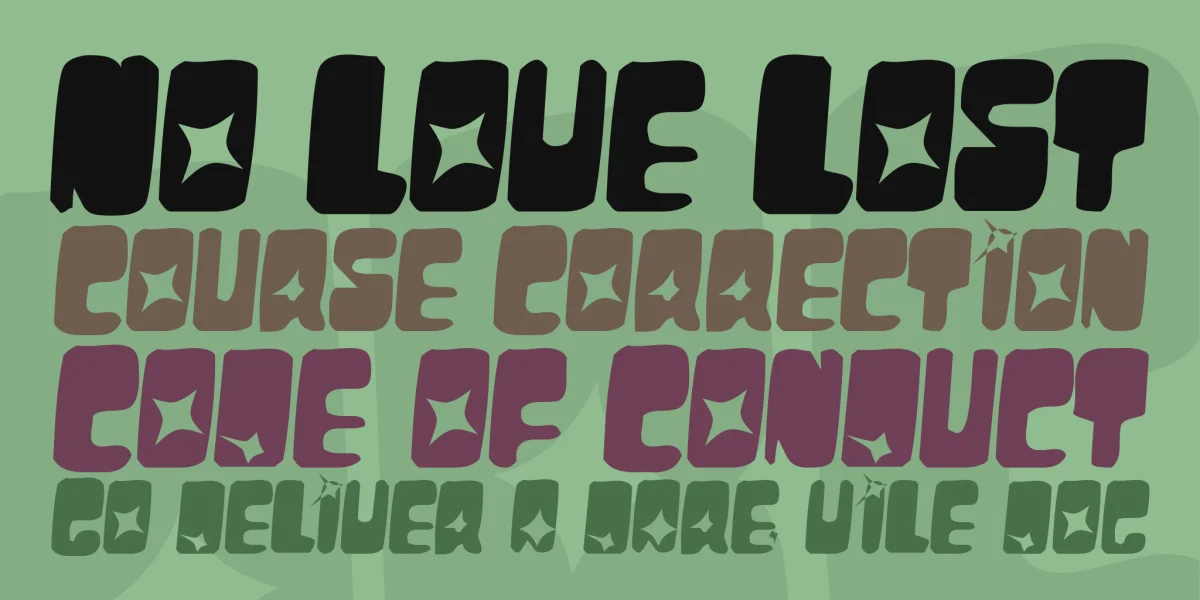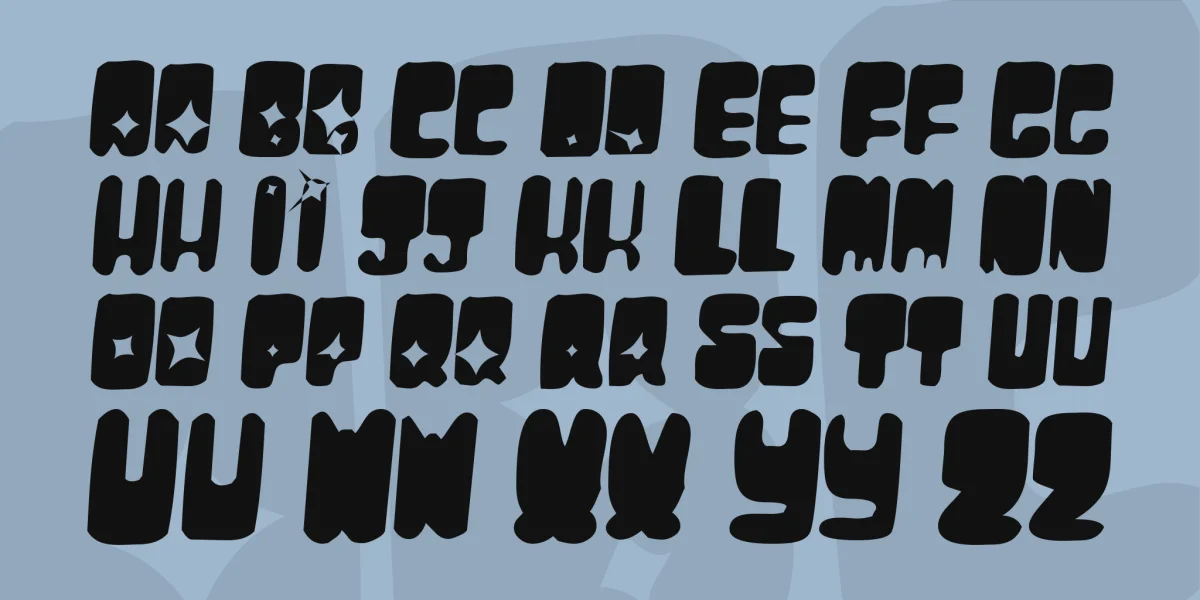
This font is kind of space-aged. After spending a long time drawing it I said to myself, "what a waste of time. this font sucks." Even the name of it sucks. But I don't want to waste anymore time with this beast. If you happen to like it, please take it.